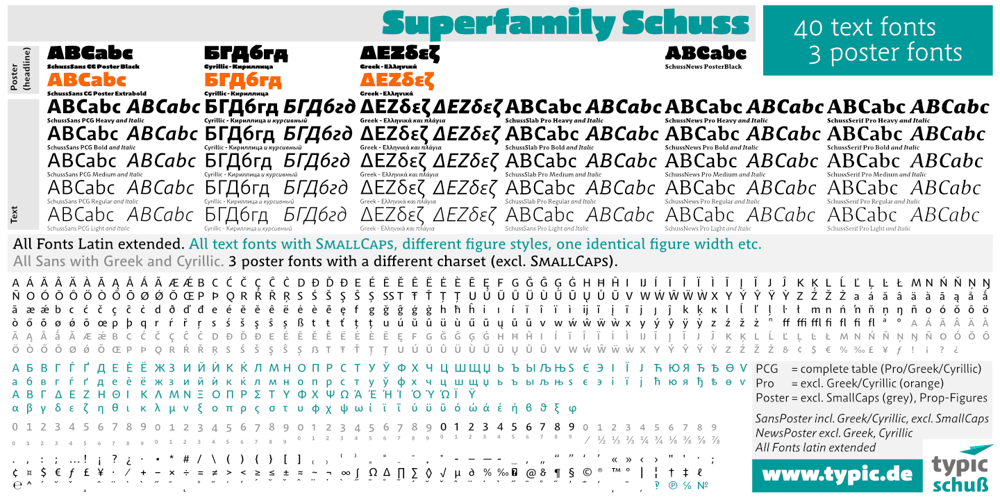
Schuss Sans CG Poster Extrabold Font Family was designed by Jochen Schuss and published by typic schuss. Schuss Sans CG Poster Extrabold contains 1 styles and family package options. Schuss Sans CG Poster Extrabold 1 upright OTF Font Latin extended, Cyrillic and Greek. Specially developed for headline poster display sizes. A Sans Serif Extrabold Headline-Font in addition to the Schuss superfamily. The heights are optimized for big sizes, different to the text fonts of the Superfamily Schuss. The character set is slightly different to the non poster styles too, but comparable to Schuss Sans CG Poster Black. No italic, no additional figures, no tabular figures, no small Caps. But with maximum manual kerning. Ligatures: fi, fl, ff, ffi, ffl. No special OpenType features.